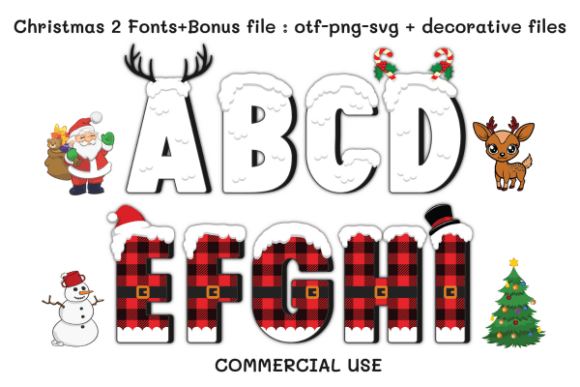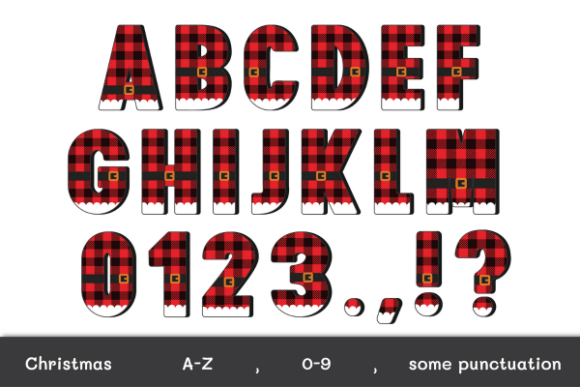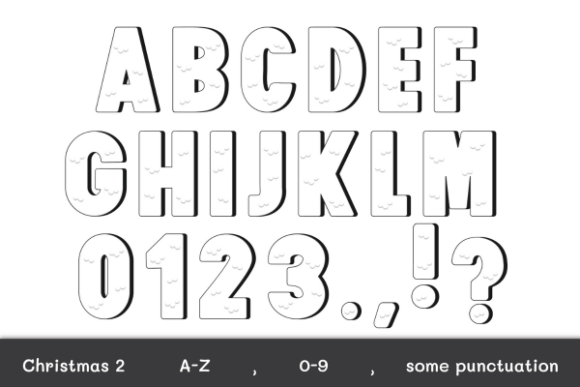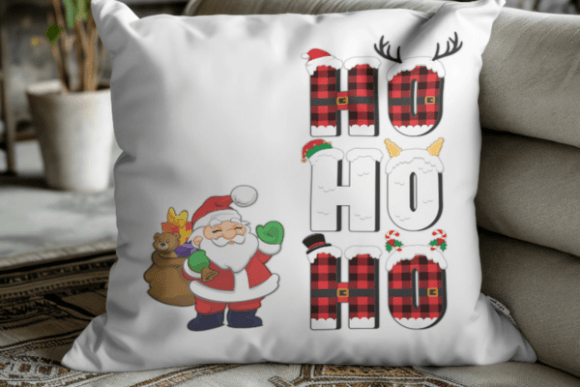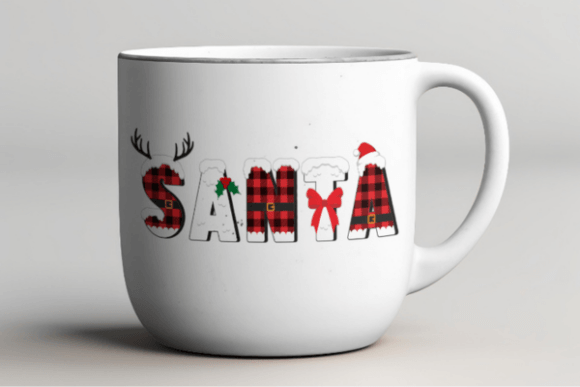
Indulge in a festive ambiance with our ‘Christmas’ font – a charming, colorful typographic delight. Expertly designed to add a touch of holiday cheer to any design, sweater, craft, or greeting card, ‘Christmas’ is your go-to option for instantly amplifying the warmth and joy of your projects. Its adorable aesthetics will breathe Yuletide magic into your creations, showing Christmas isn’t just a season, it’s a feeling, embodied by this vibrant font.